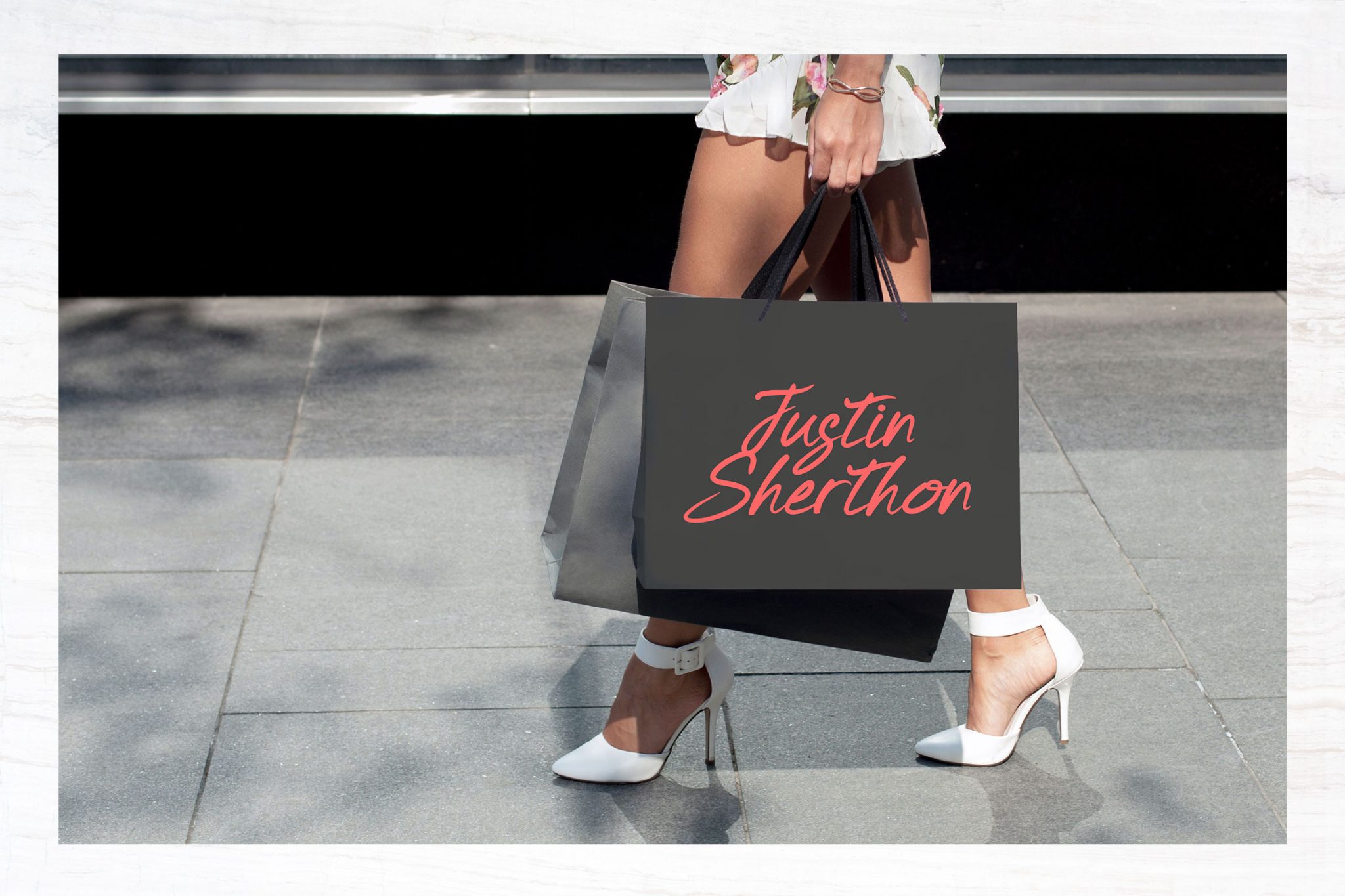
Keishue is a modern handwritten typeface, beautiful and luxurious. This elegant and beautiful font is stylish and versatile so you can use in a plethora of designs in both digital and print applications.
Keishue font is the best choice for your professional design projects, including : signature, watermark on photography, quotes, album cover, book cover, business card, logo, branding, magazines, social media, advertisements, product designs, and many other design project.
• Basic Latin A-Z and a-z
• Numbers
• Punctions
Keishue Script font